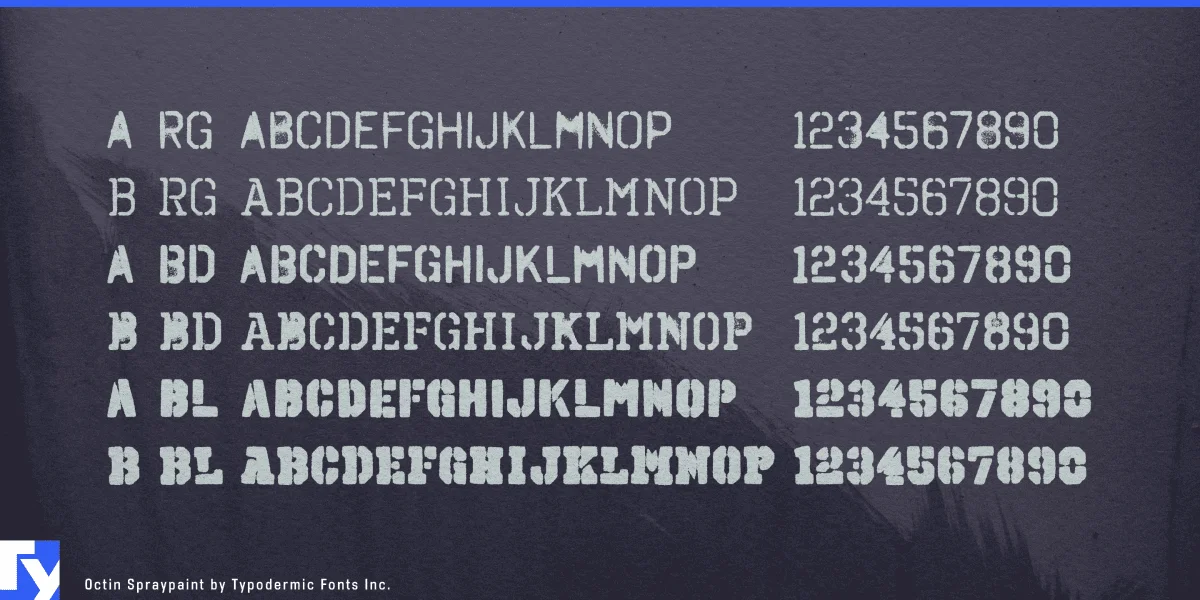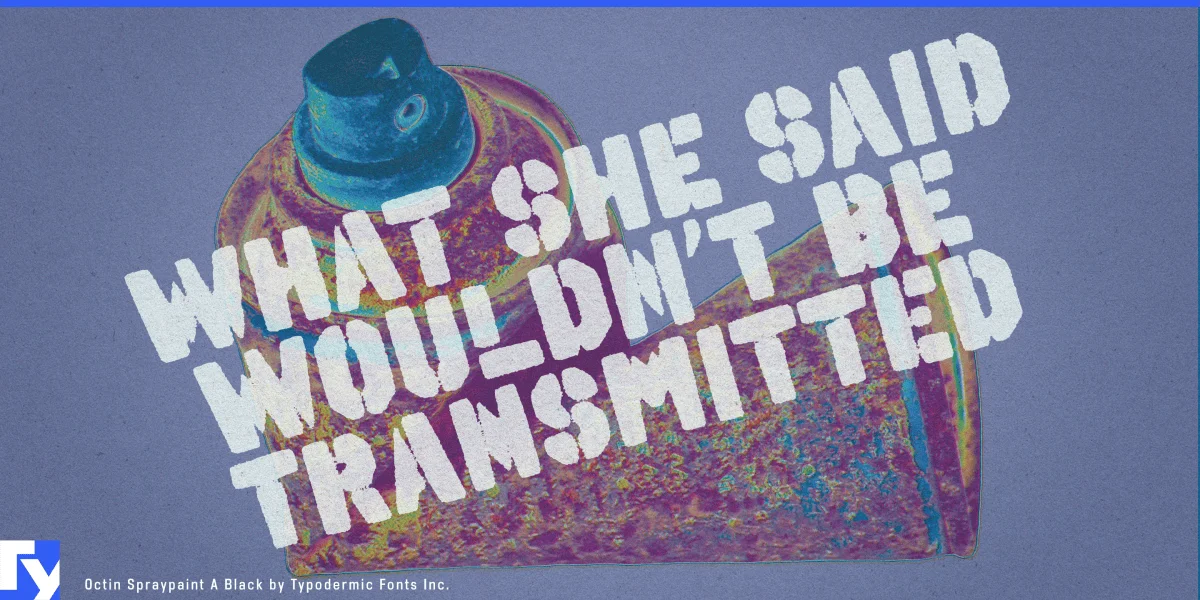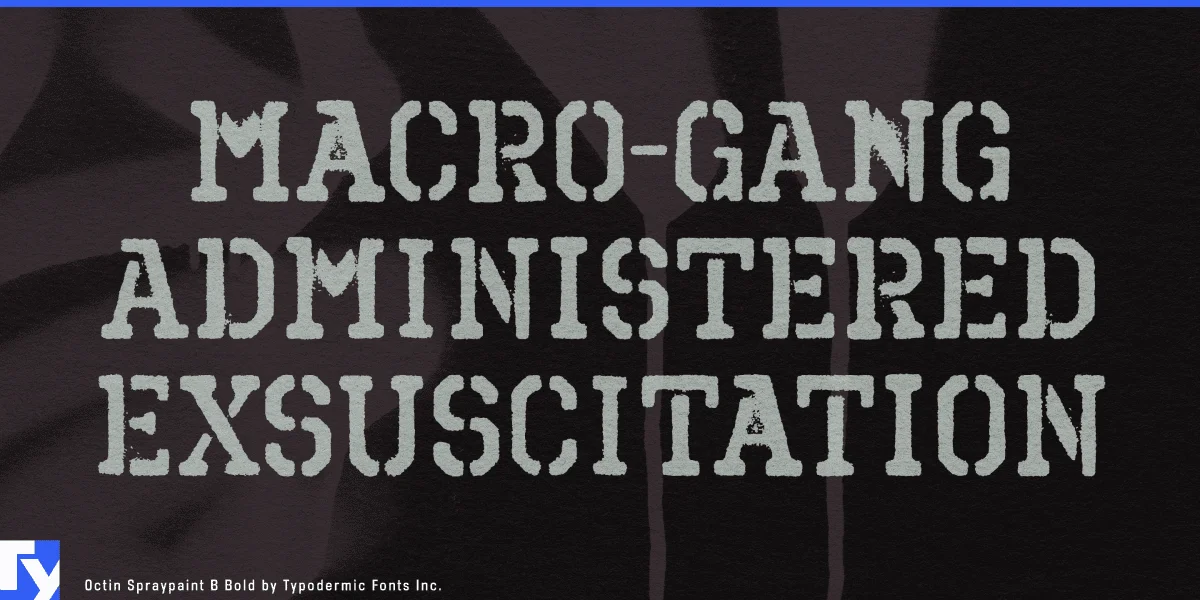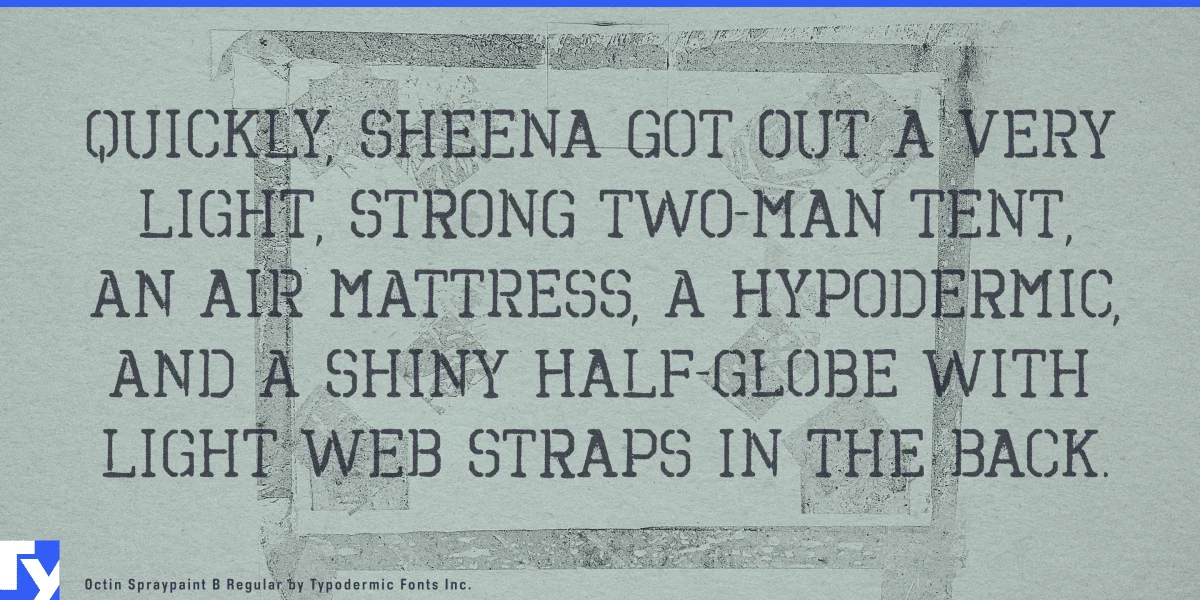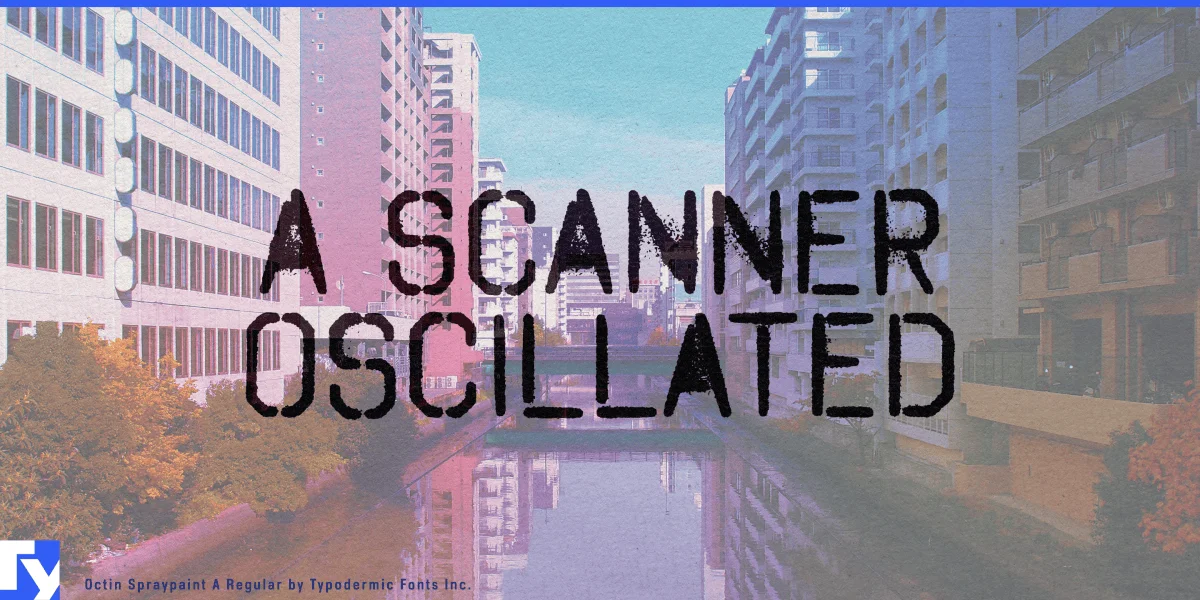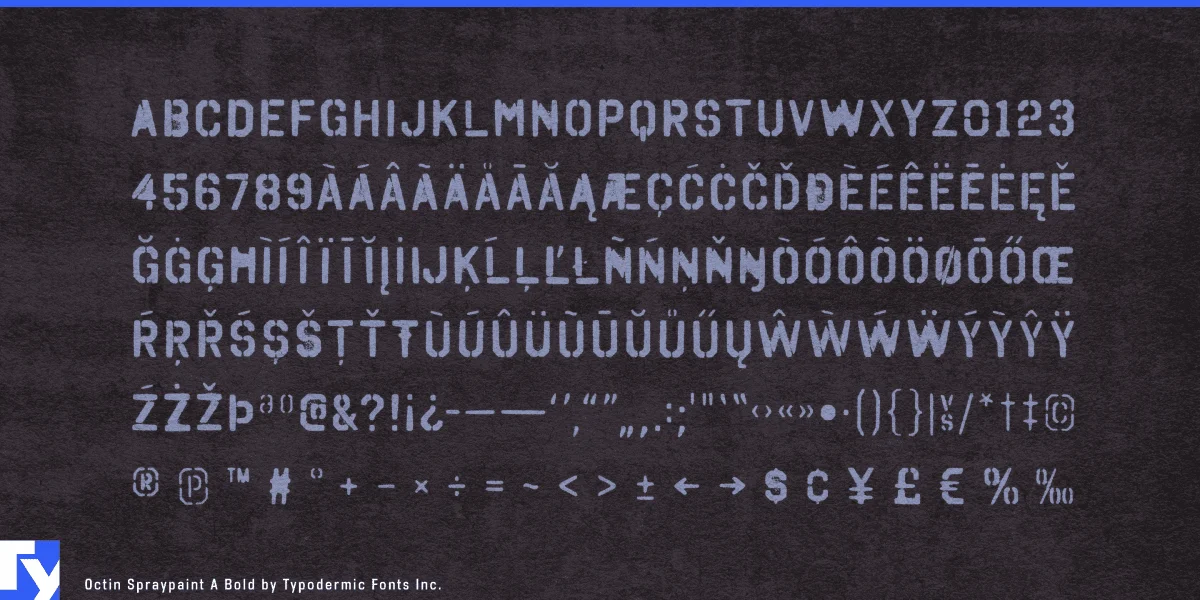
Brace yourself for Octin Spraypaint, the typeface that doesn’t just push boundaries—it jumps right over them. This is typography straight from the street, with an attitude that screams defiance and a style that’s pure urban grit.
Octin Spraypaint comes locked and loaded with two distinct crews: the sans and the serif. Each style rolls deep with three weights—regular for subtle statements, bold for in-your-face declarations, and black for when you need your words to hit like a freight train. The sans crew keeps it raw with sharp, angular lines that cut through design clutter like a hot knife. Meanwhile, the serif squad adds a touch of old-school flavor, proving that even the streets respect tradition. Don’t think for a second that Octin Spraypaint is just another pretty face in the typographic lineup. This font family is as versatile as a Swiss Army knife and twice as sharp. It’s equally at home tagging the side of a police cruiser or spray-painting school spirit across gymnasium walls. From military recruitment posters that command respect to construction signs that demand attention, Octin Spraypaint leaves its mark.
Octin Spraypaint speaks the international language of the streets. Supporting most Latin-based European writing systems, it ensures your message maintains its edge whether you’re in the back alleys of Berlin or the concrete jungles of São Paulo. It’s typography that’s got street cred in any language. This badass typeface isn’t a lone wolf—it runs with the notorious Octin pack. Team up with Octin Sports for designs that pack a punch, Octin College for a scholarly approach to street smarts, Octin Prison for that raw, confined heat, Octin Stencil for military-grade attitude, and Octin Vintage for a throwback to when tough was the only way to be.
In a design world full of polished pretenders, Octin Spraypaint keeps it real. It’s for brands that don’t just make a statement—they start a revolution. For messages that don’t whisper—they shout from the rooftops. From underground music flyers to hardcore streetwear logos, Octin Spraypaint communicates with raw power. Choose Octin Spraypaint and watch your designs claim their territory in the urban jungle of typography.